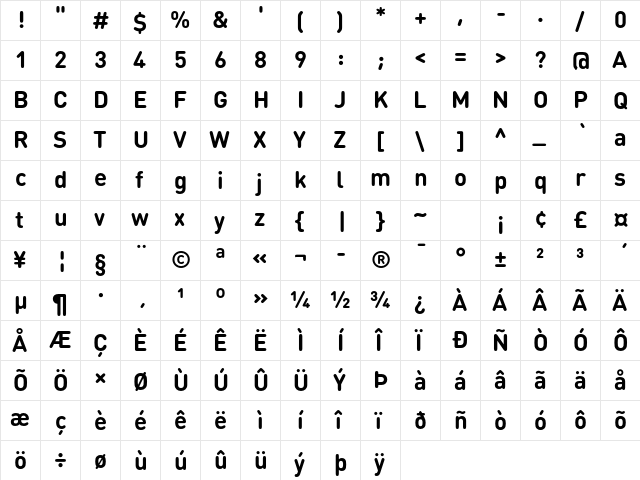
DIN Round Pro Bold
Design Context for DIN Round Pro Typeface
DIN Round Pro softens its letterforms with rounded terminals, giving it an approachable, friendly quality that works well in consumer-facing and digital contexts. Its bold stroke weight gives it real presence on the page.
Well-suited to UI design, mobile interfaces, and any brand that wants approachability without sacrificing clarity.
Font Pairing: Pairs well with a rounded or humanist sans for body copy, maintaining the friendly tone without relying on DIN Round Pro to carry extended reading.
Pro Tip: Use DIN Round Pro for UI elements, app interfaces, and anywhere a friendly, approachable tone needs to be maintained without sacrificing clarity.